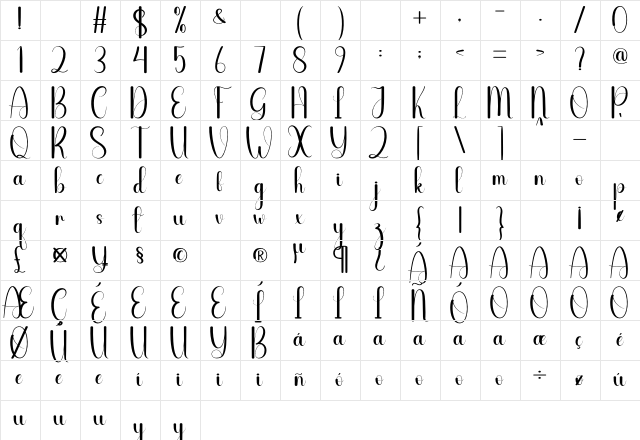
Bedtab Regular
Design Context for Bedtab
Bedtab is a composed and adaptable typeface that performs quietly and consistently across a wide range of design contexts.